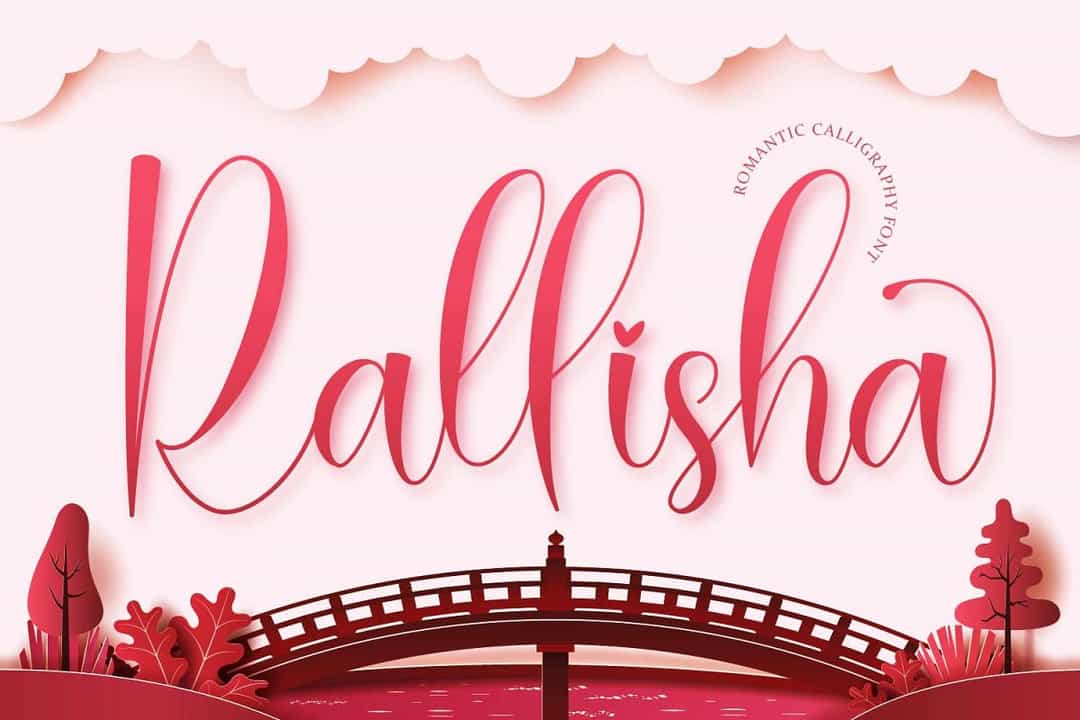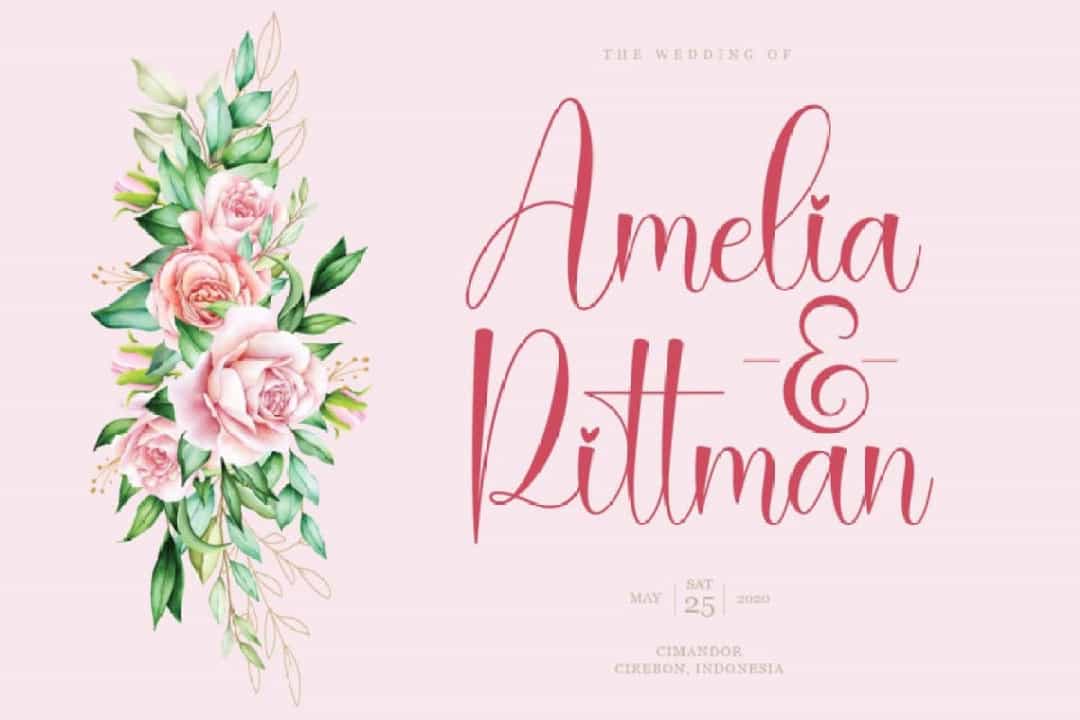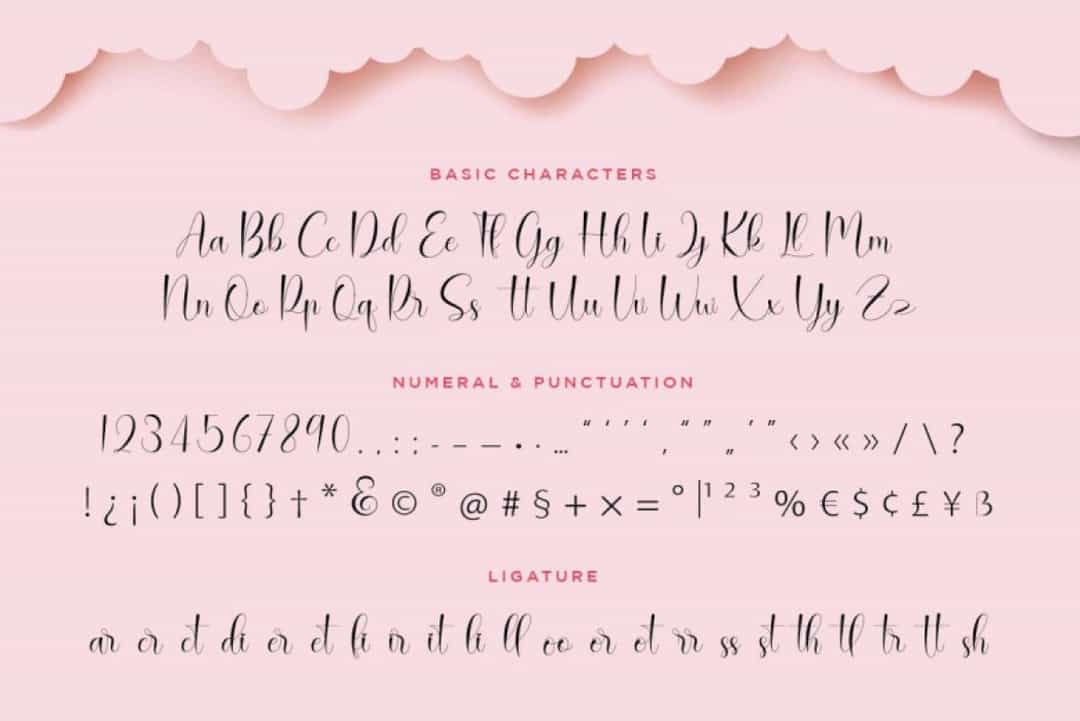
Rallisha is an elegant calligraphy typeface, is suitable for a variety of designs, such as logos or branding projects design for homeware packaging, mugs, product packaging posters, quotes T-shirts, shopping bags books, name cards invite cards, greeting cards labels, photography, watermarks special events and other beautiful projects that require gorgeous calligraphy.